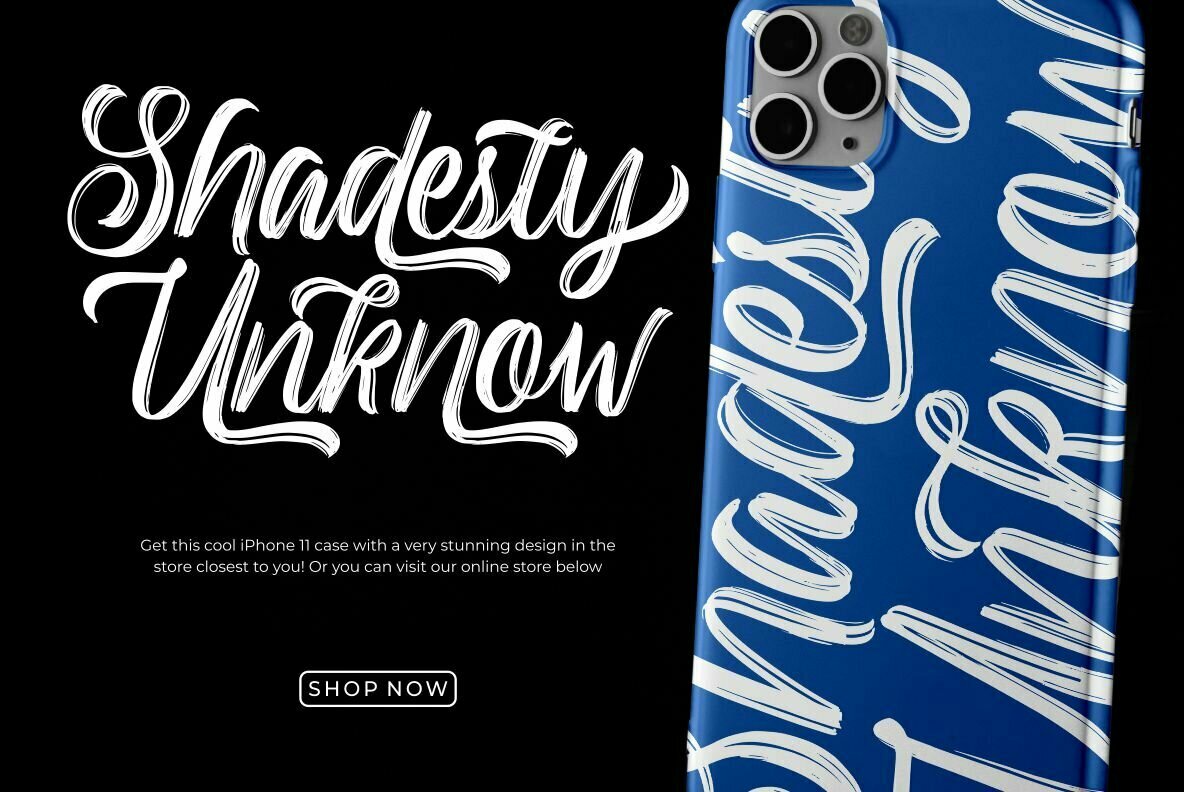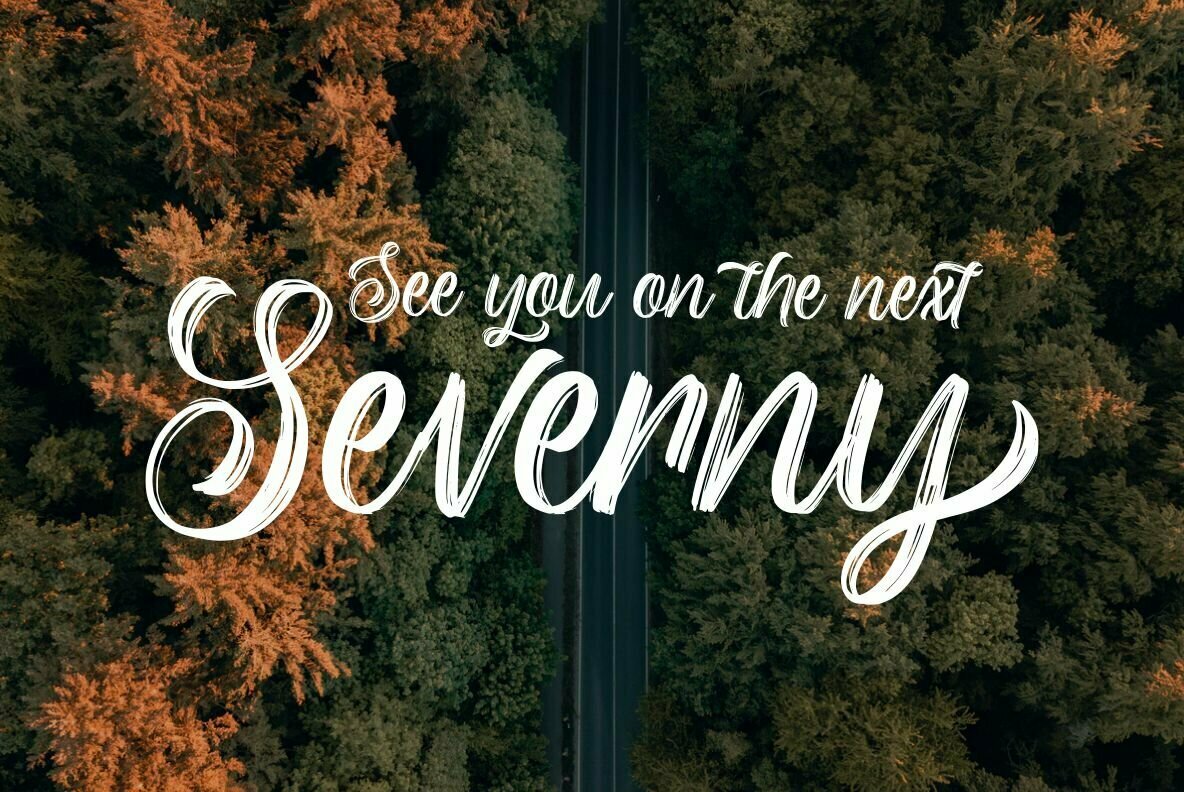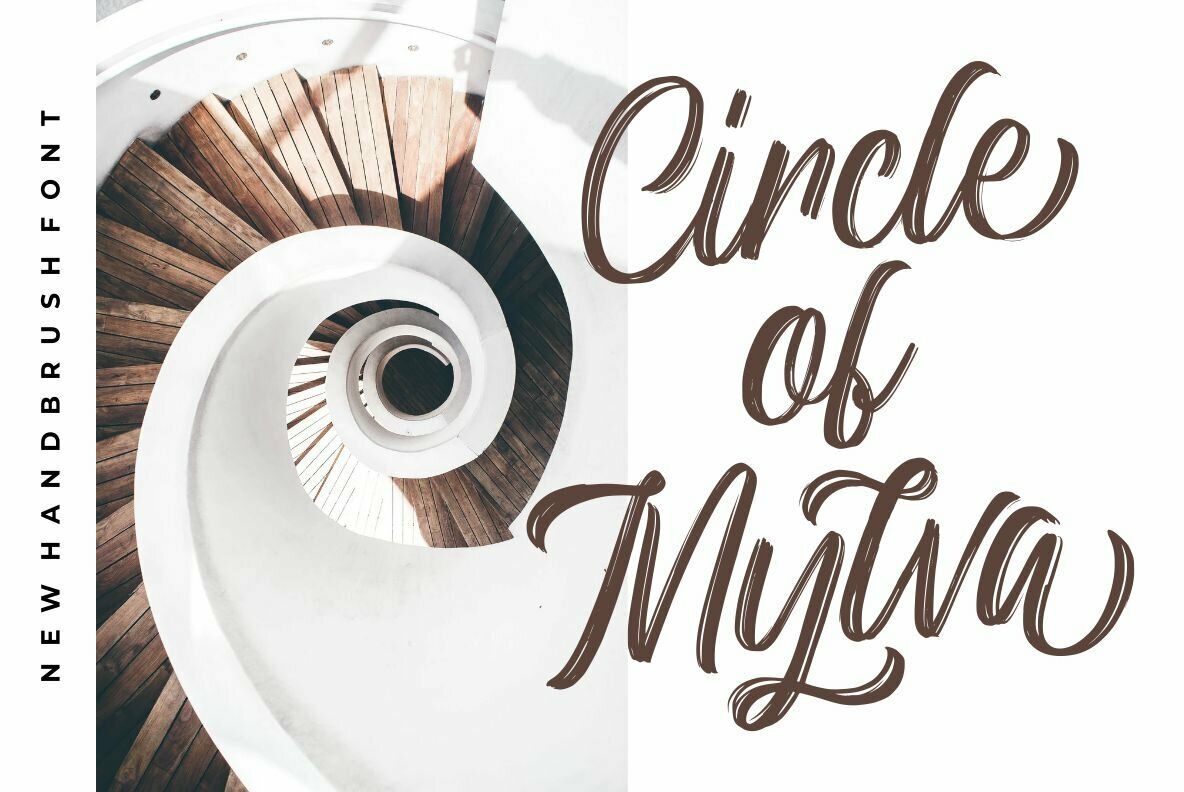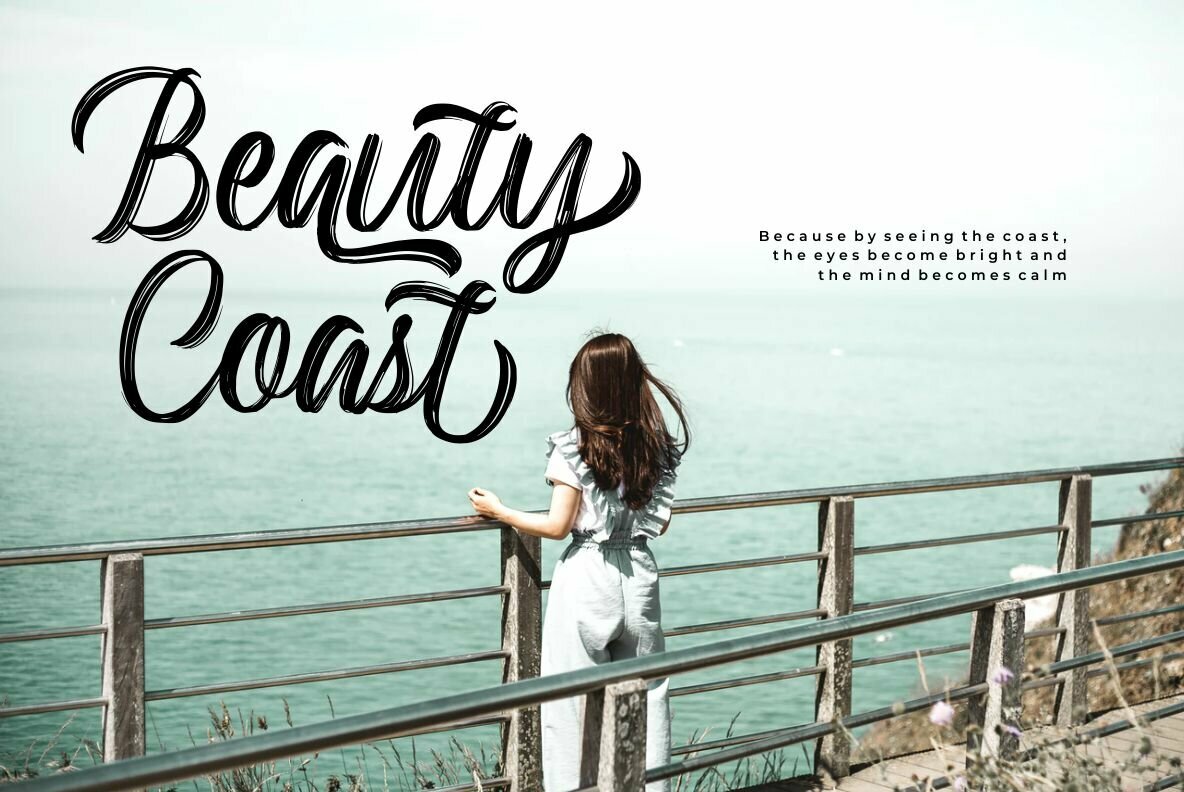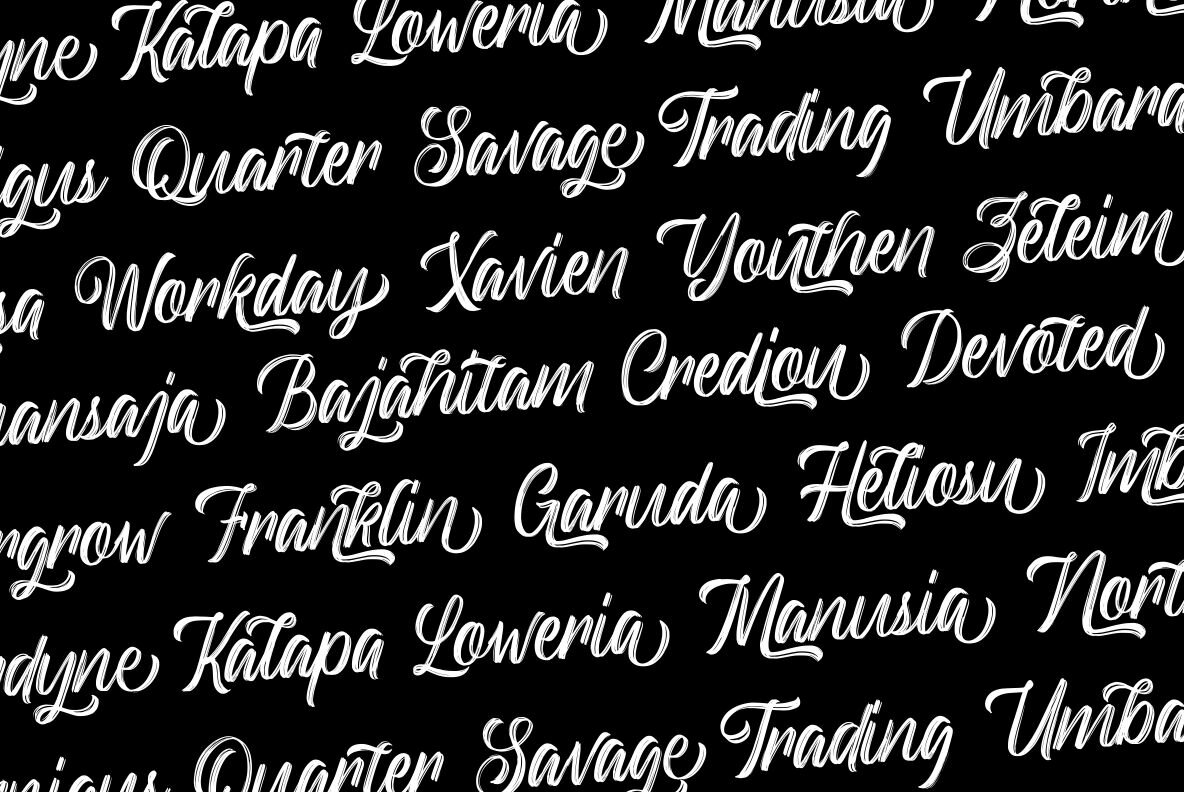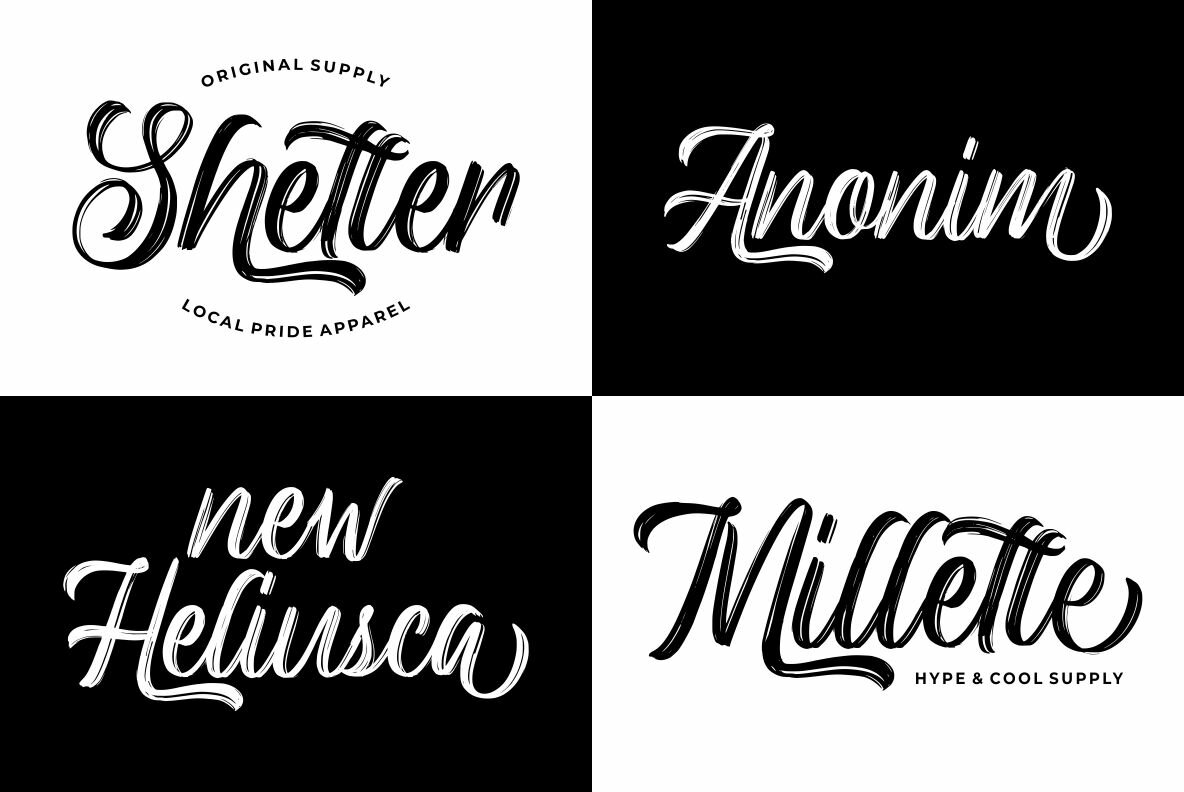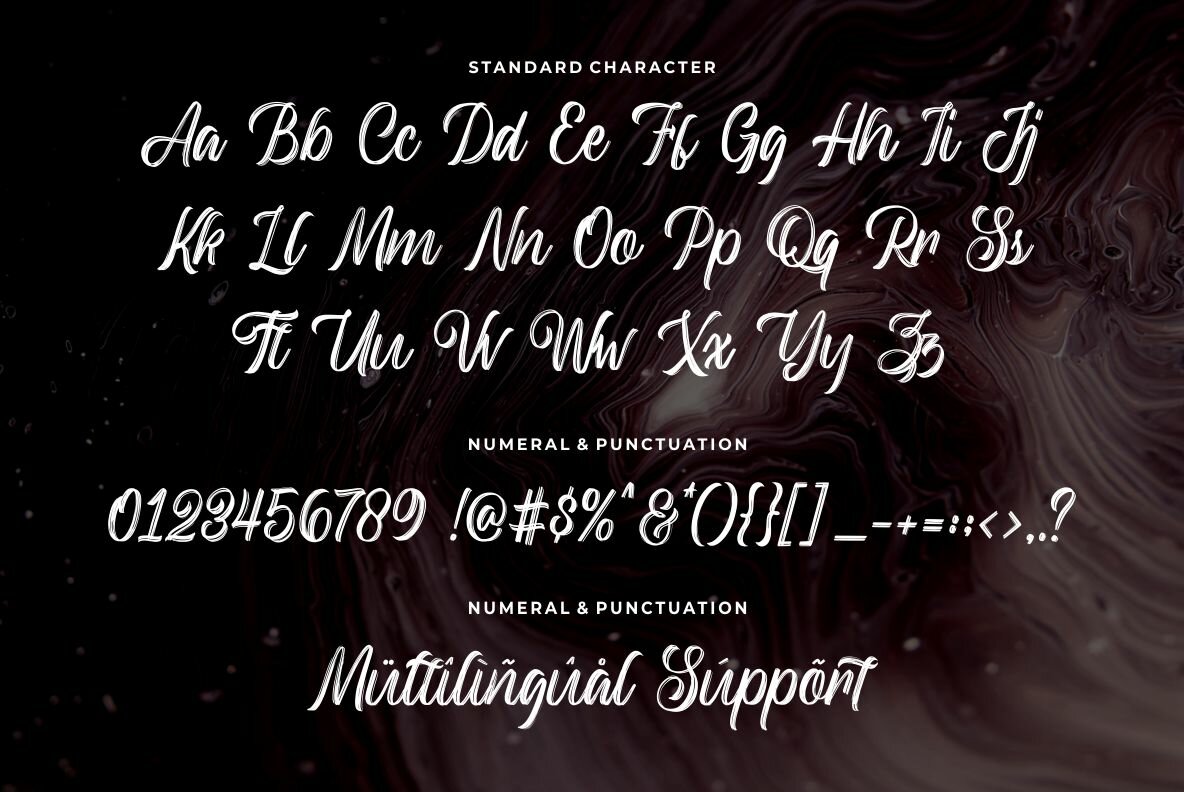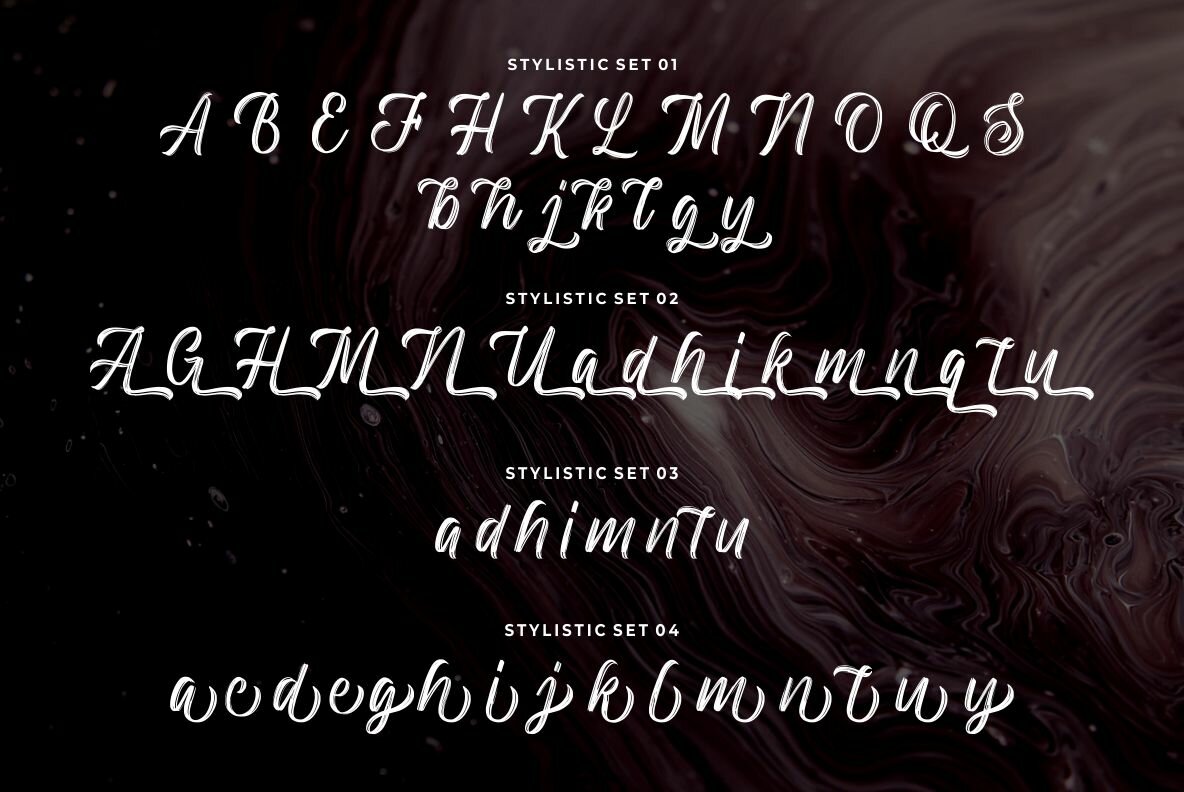
Backrush Font
Backrush
Backrush combines attractive curves with a fresh urban edge; delivering a stylish script hand brush which is guaranteed to add an eye-catching appeal to your logo designs, brand imagery, handwritten quotes, product packaging, merchandise & social media posts
- Opentype Features (Stylistic Set 01, Stylistic Set 02, Stylistic Set 03, Stylistic Set 04)
- Detailed dry brush